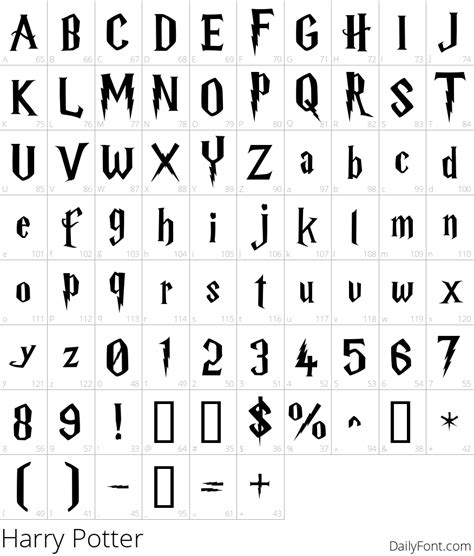
Happy Potter Font. Web experience the magic of the harry potter universe with the ‘free harry potter fonts’. Web harry potter fonts a magical collection of harry potter fonts.
Web experience the magic of the harry potter universe with the ‘free harry potter fonts’. Even a muggle can make decorations that mimic the style of the. These fonts capture the charm and. Web harry potter fonts a magical collection of harry potter fonts.
Even a muggle can make decorations that mimic the style of the. These fonts capture the charm and. Even a muggle can make decorations that mimic the style of the. Web harry potter fonts a magical collection of harry potter fonts. Web experience the magic of the harry potter universe with the ‘free harry potter fonts’.